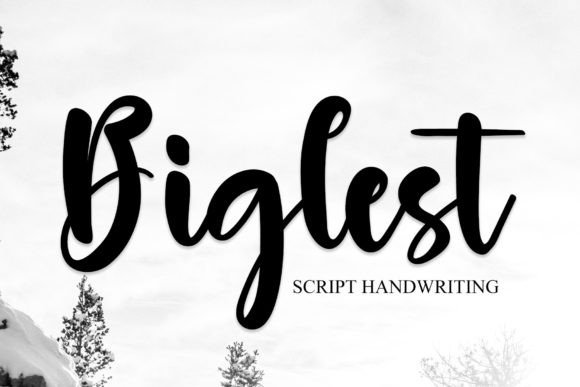
Introducing Biglest Font, the epitome of elegance and grace in the world of script fonts. Created by the talented YanStudio, this font is a true masterpiece that will leave a lasting impression on any project you have in mind.
Are you planning a dreamy wedding and looking for the perfect font to adorn your invitations? Look no further! Biglest Font is the best font for wedding cards, ensuring that your special day is accompanied by an air of sophistication and romance. Its delicate strokes and intricate details will capture the essence of your love story, making your invitations truly unforgettable.
But the beauty of Biglest Font doesn't stop there. This versatile font is a must-have for any creative endeavor. Whether you're crafting a logo, working on a branding project, designing labels, or even adding a watermark to your photography, Biglest Font will elevate your work to new heights of professionalism.
Imagine your logo standing out from the competition with its elegant curves and graceful swashes. Picture your branding project making a bold statement with its refined and stylish typography. With Biglest Font, your creativity knows no bounds, and the possibilities are endless.
Not only does Biglest Font exude sophistication, but it also conveys a sense of warmth and personal touch. Its handwritten style adds a genuine and heartfelt element to your designs, creating a connection with your audience that goes beyond the visual. Let your words come to life with this captivating font, captivating hearts and minds in the process.
With Biglest Font, you'll experience the joy of limitless creativity. Its extensive character set allows you to explore various design options, ensuring that you find the perfect fit for every project. From elegant headlines to charming body text, this font has it all.
Don't miss out on the opportunity to elevate your designs with the charm and allure of Biglest Font. With its timeless beauty and captivating allure, this font is a true game-changer in the world of typography.